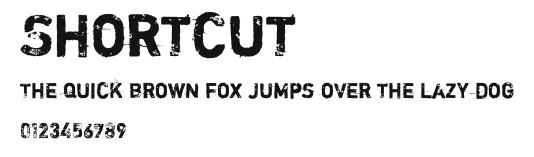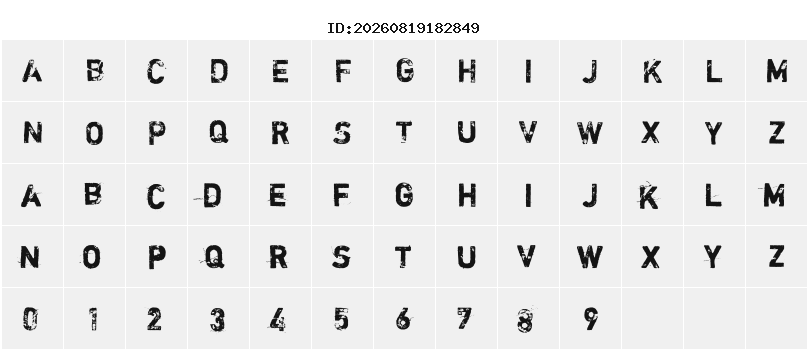
Shortcut Preview
About Shortcut.ttf
Shortcut.ttf is a modern, elegant sans-serif font designed for ultimate readability and visual harmony. Perfect for branding, headlines, web design, and print materials.